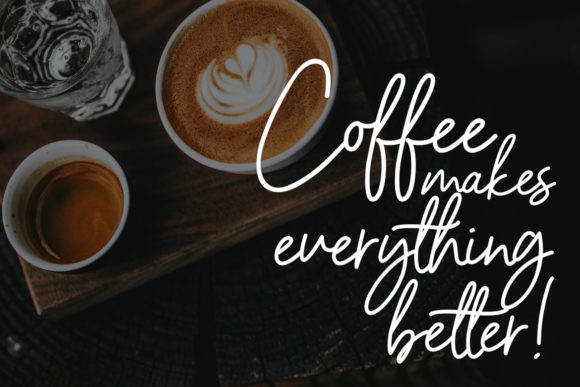
The Elegance of Barcelony Font: A Designer’s Best Friend
I still remember the time I was working on a wedding invitation project, and my client asked for a font that was elegant, smooth, and had a personal touch. I scoured the internet, tried countless fonts, but nothing seemed to fit the bill. That was until I stumbled upon the Barcelony font. It was love at first sight! 💕 The elegant strokes, the flowing connections, and the warm feel instantly won me over. In this article, I’ll share my experience with the Barcelony font, its features, and how to make the most of it in your designs.
An Honest Review of Barcelony Font
What I Love About Barcelony Font
- ✨ Elegant and smooth signature script that adds a touch of sophistication to any design
- ✅ Handwritten feel that gives your design a personal and unique touch
- ✅ Perfect for a wide range of design projects, including branding, logos, wedding designs, social media posts, and more
- ✨ Highly versatile and can be used for both digital and print designs
While the Barcelony font is amazing, it’s not perfect. Here are a few things to keep in mind:
- ⚠️ The font may not work well with very short texts or headings, as it can look a bit too ornate
- 🤔 Some characters may not work well in very small sizes, so it’s best to use it at larger sizes (around 20-30px or more)
The Backstory of Barcelony Font
The Barcelony font was designed by a talented typographer who wanted to create a font that would evoke the elegance and sophistication of the city of Barcelona. With its smooth strokes and flowing connections, the Barcelony font is a true reflection of the city’s beauty and charm.
Q: Is the Barcelony font suitable for body text?
A: While the Barcelony font is beautiful, it’s not ideal for body text. It’s best used for headings, titles, or short paragraphs where you want to make a statement.